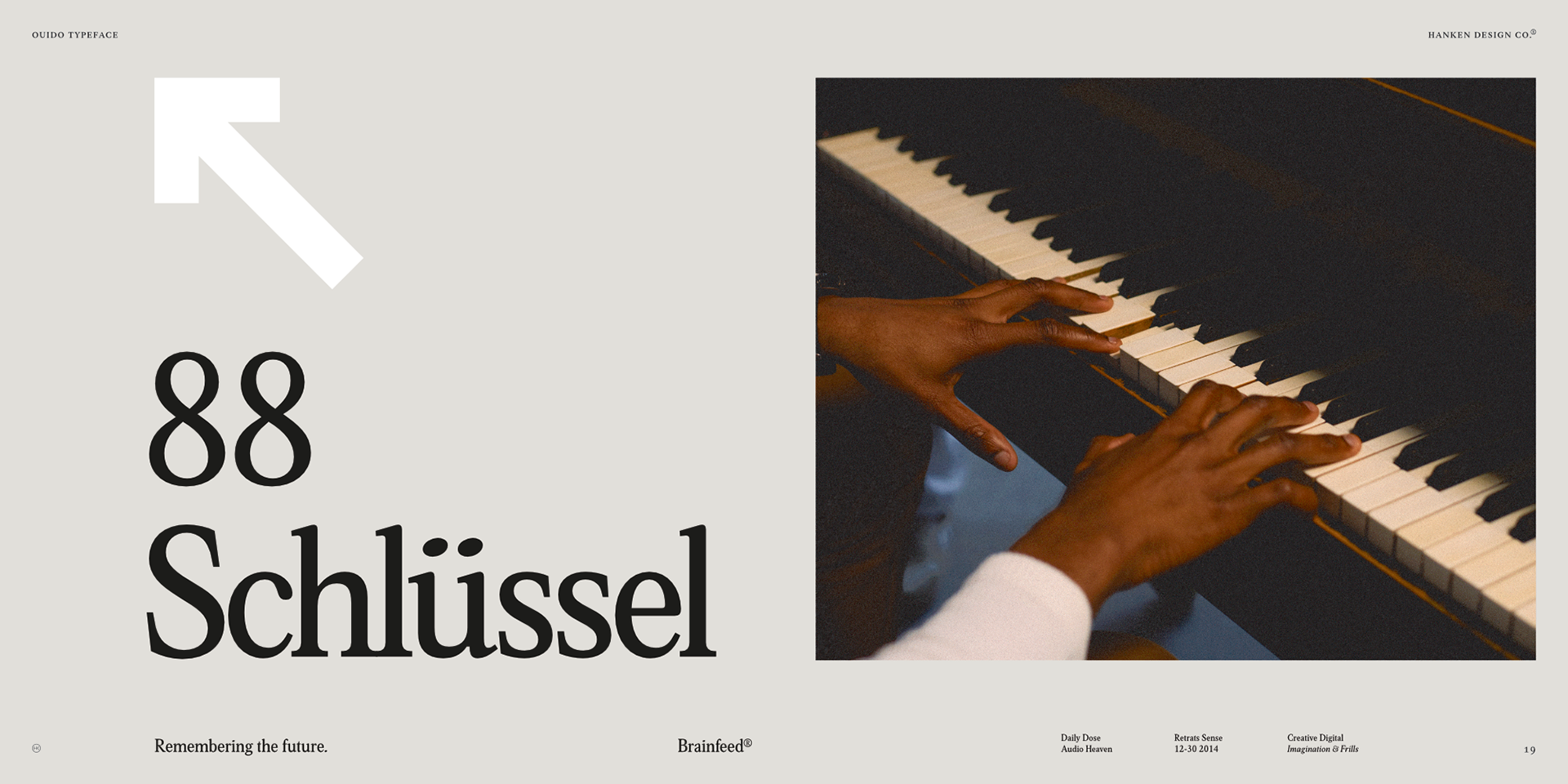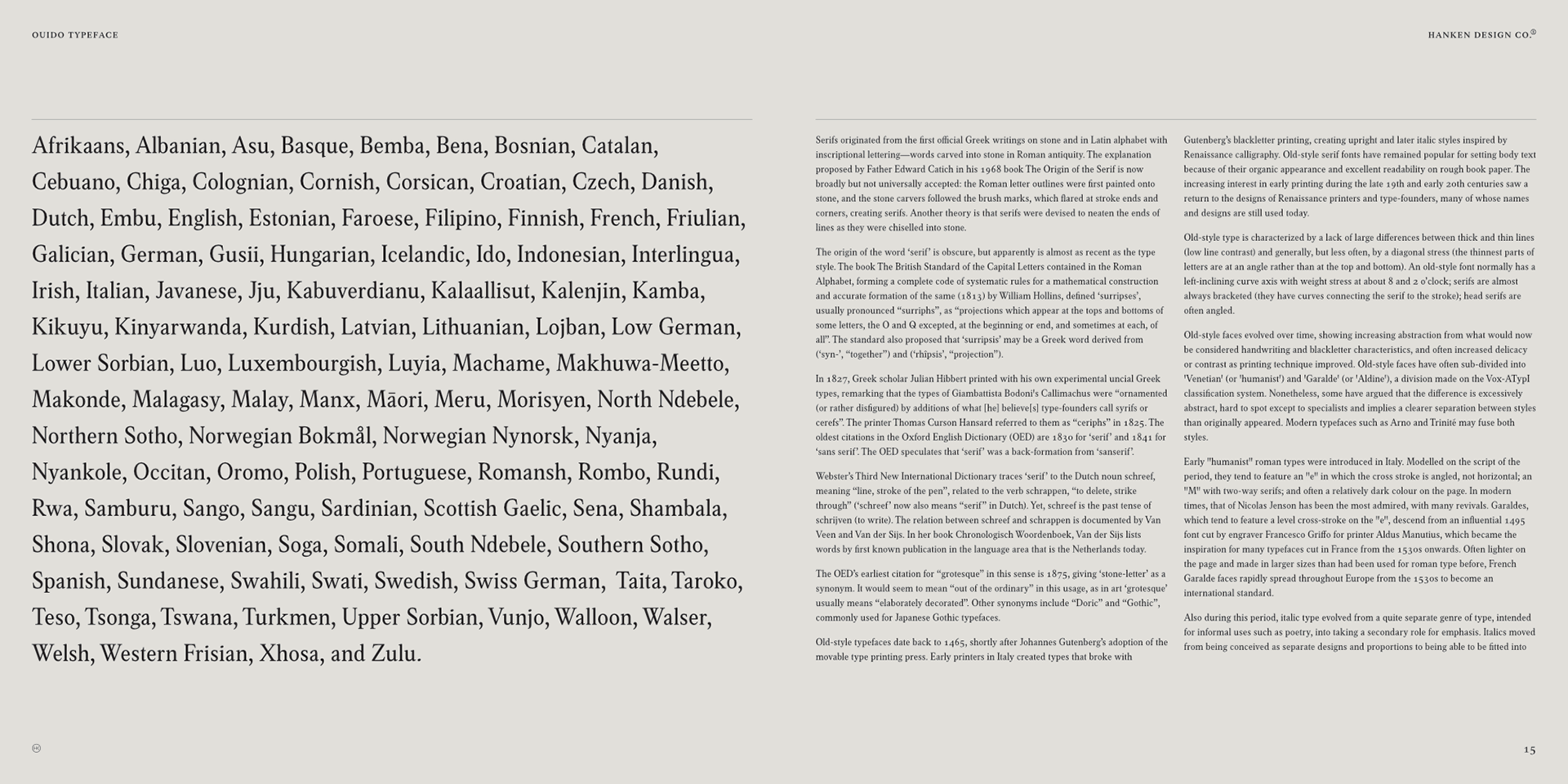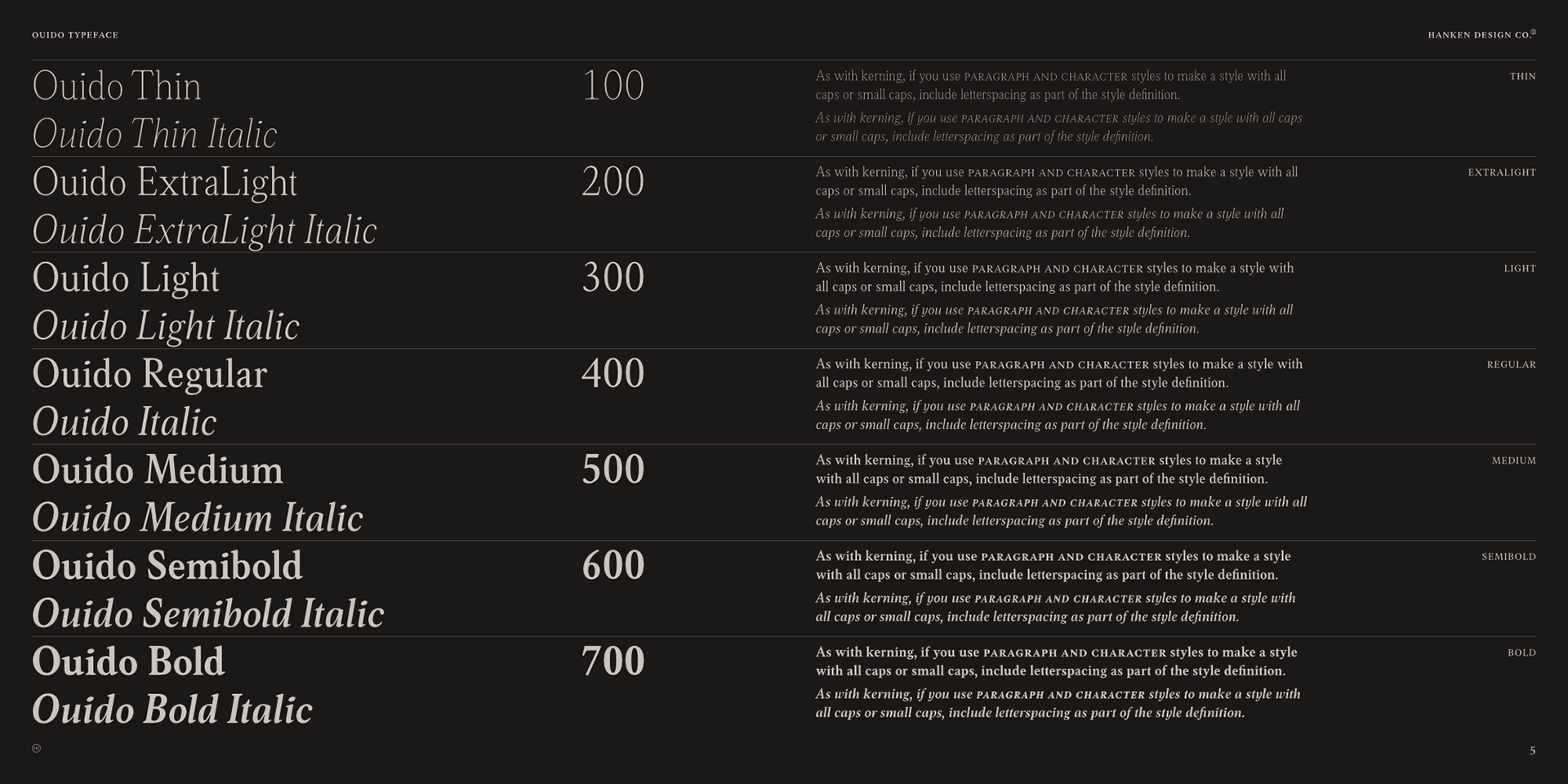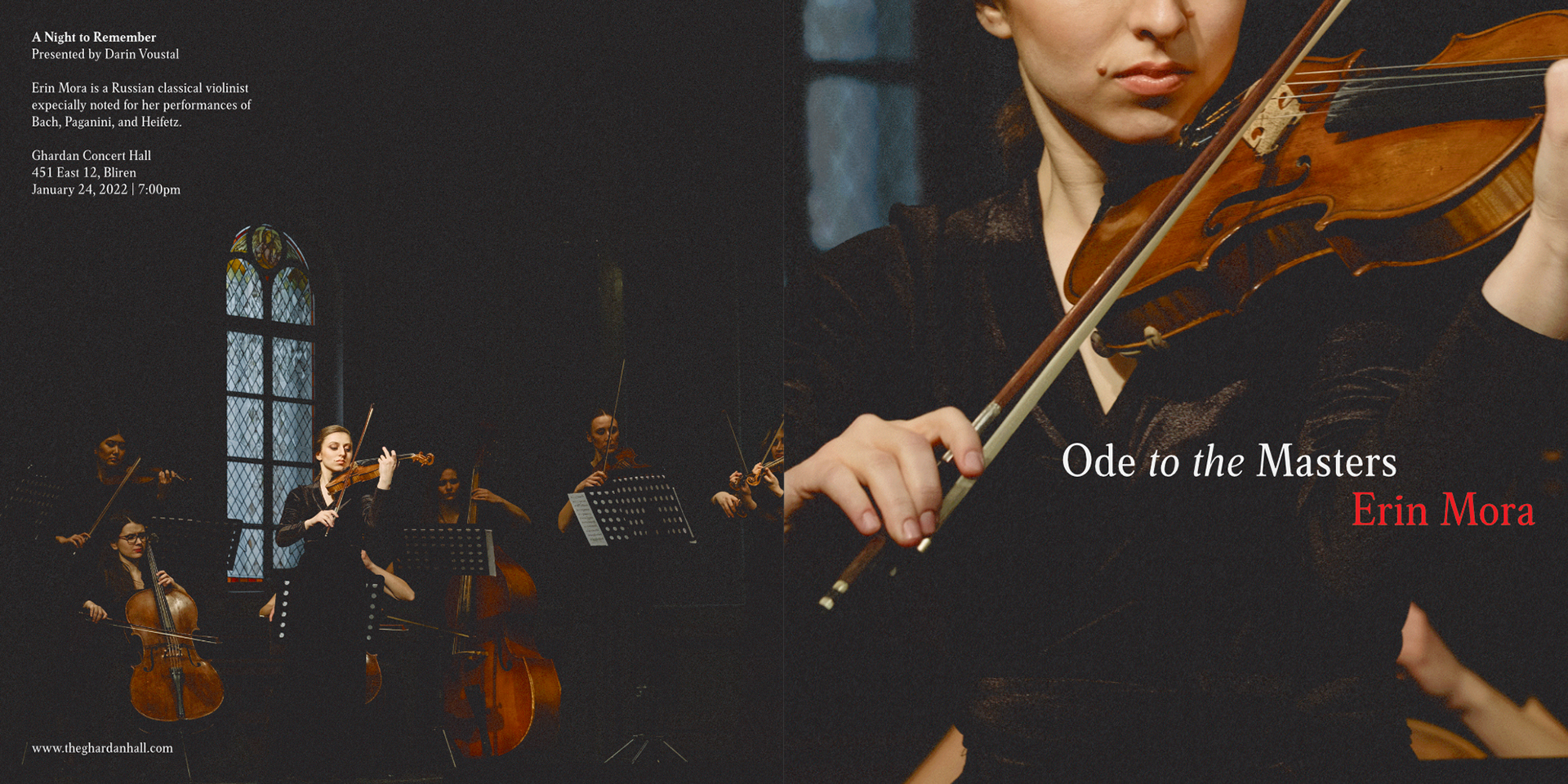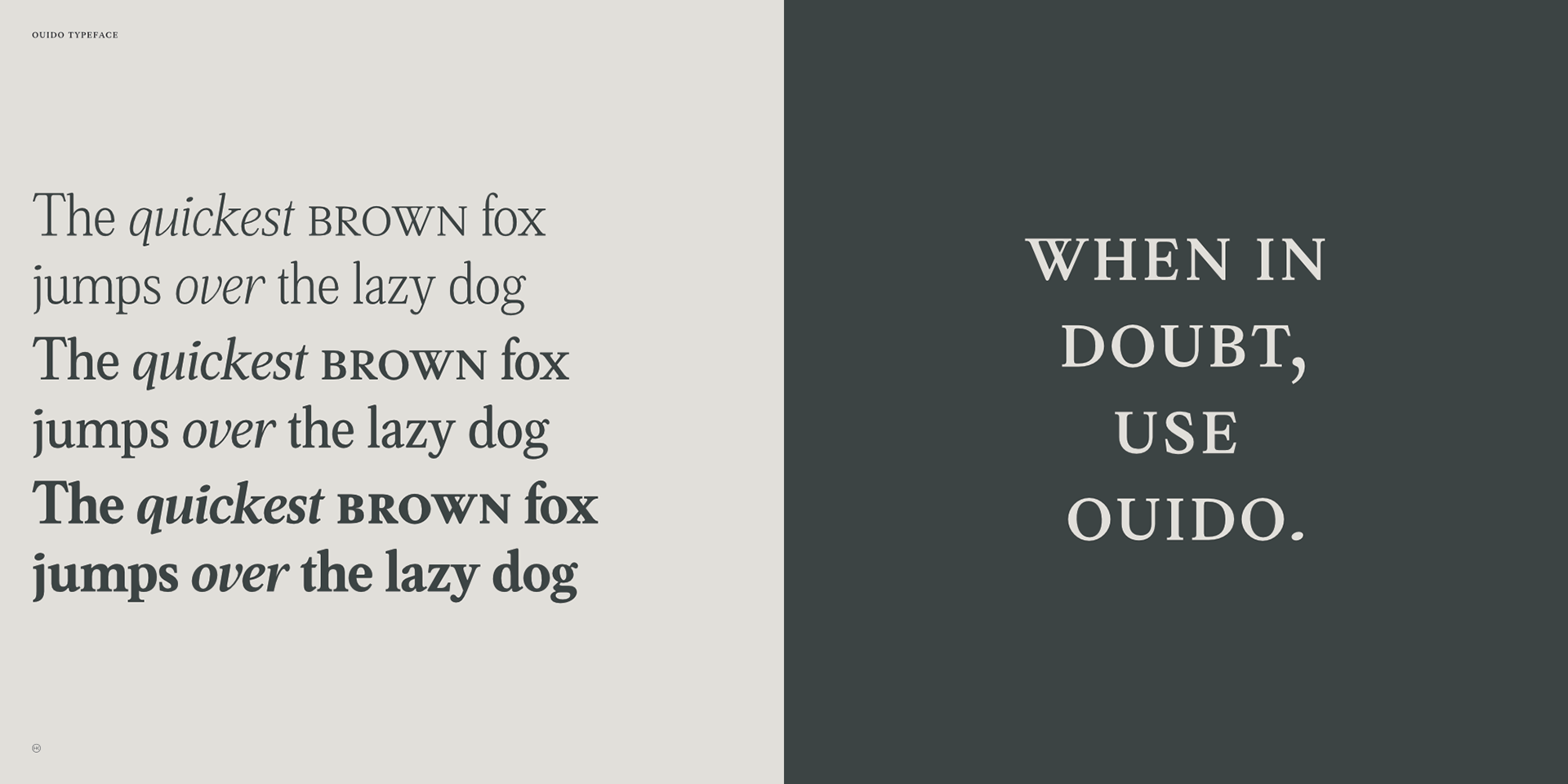
Introducing the Ouido Typeface
Ouido (pronounced as “widow”) is derived from the Portuguese word ouvir which means to hear or to listen. Ouido refers to the ability to play a song on any musical instrument after listening to it a couple of times and without reading the notes.
The Ouido typeface is a modernized nostalgia for music enthusiasts, a whimsical revamp of the classic serif font. It bears resemblance with printed classical music scores, characterized by each letter’s rounded strokes like how one drew clefs with passion. Each dot is a twin of the quarter note minus the stem, so weaving sentences together could feel like composing a melody.
Inspired by the astounding phenomenon of absolute pitch, the visual appeal of this typeface may hone your imaginative ability to embellish your creation.
Design and Development: Alfredo Marco Pradil
Manufacturer: Hanken Design Co.
Glyphs: 550+ per style
Styles: 14 Styles (7 Roman, 7 Italic)
Class: Serif